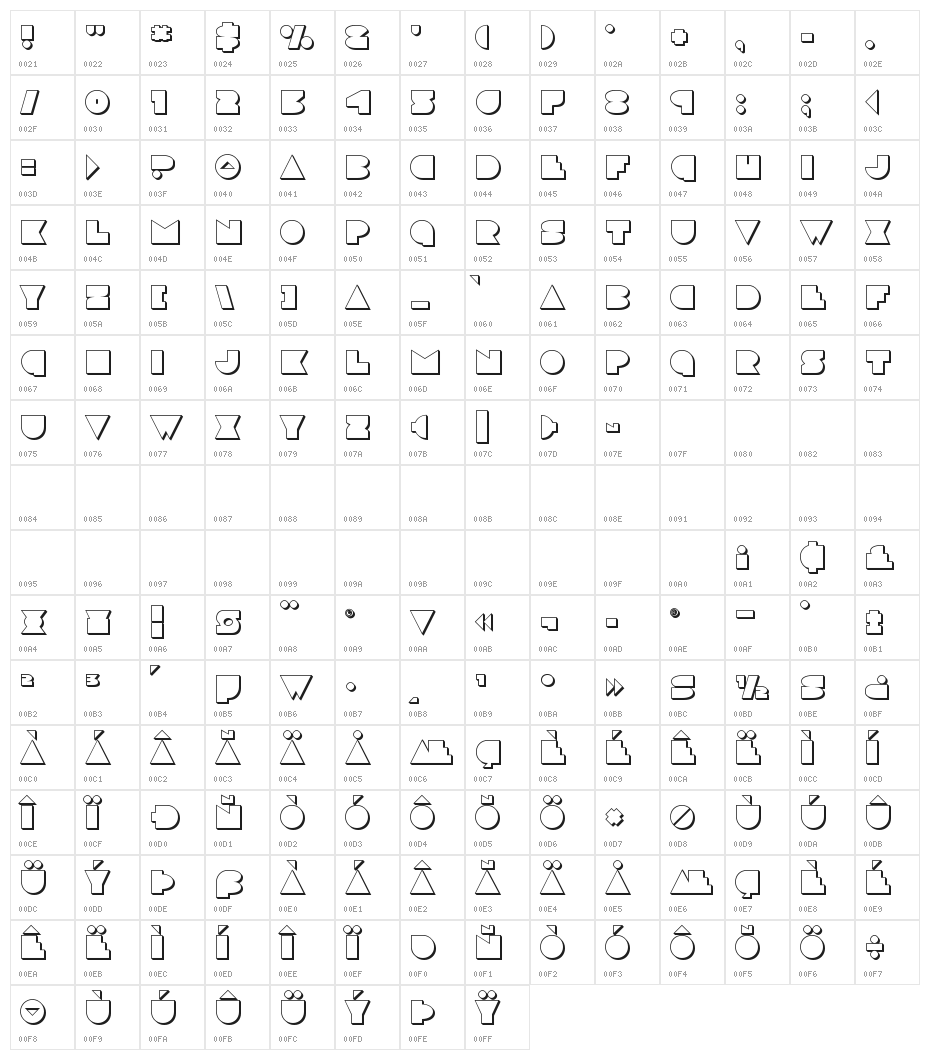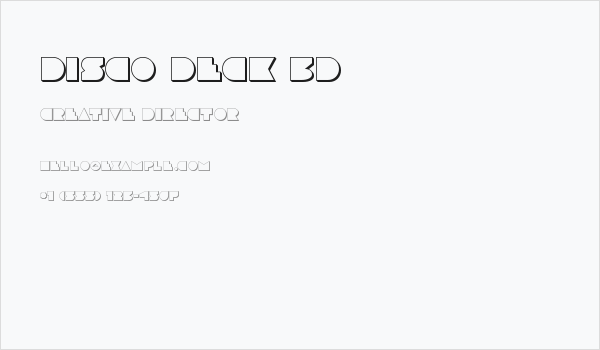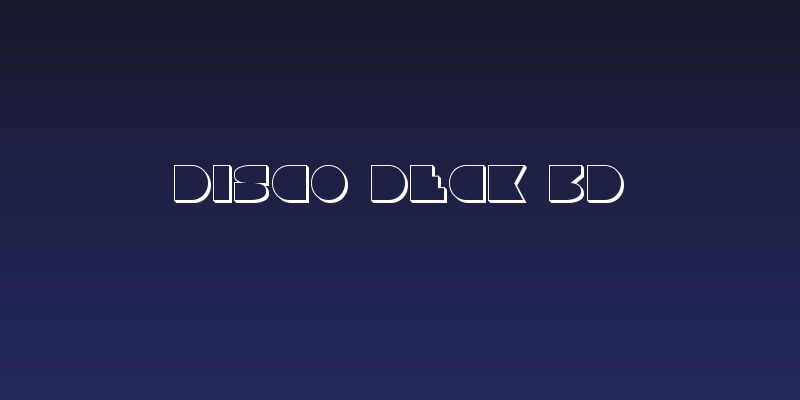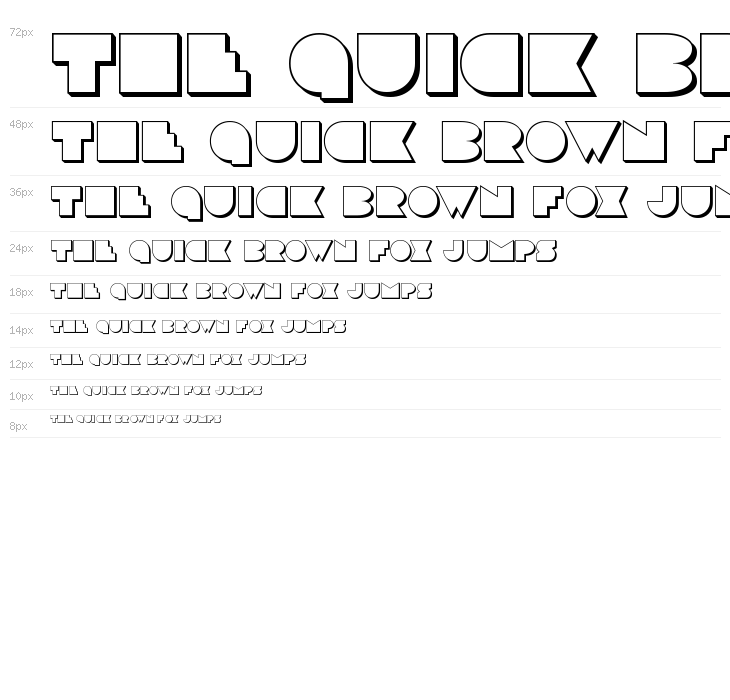
Disco Deck 3D Font
Disco Deck 3D Description
This font features a bold, geometric design with a distinct 3D effect, characterized by thick outlines and a blocky structure. The uppercase and lowercase letters share a similar style, emphasizing uniformity and a playful aesthetic. The numbers and special characters maintain the same bold, outlined look, adding to the cohesive design. The font's style is reminiscent of retro and disco themes, making it ideal for projects that require a fun and eye-catching appearance. Its unique structure and visual depth make it stand out, suitable for creative and artistic applications.
| Overall Style | Retro, Decorative |
| Proposed Projects | Ideal for posters, album covers, event flyers, and retro-themed designs. |